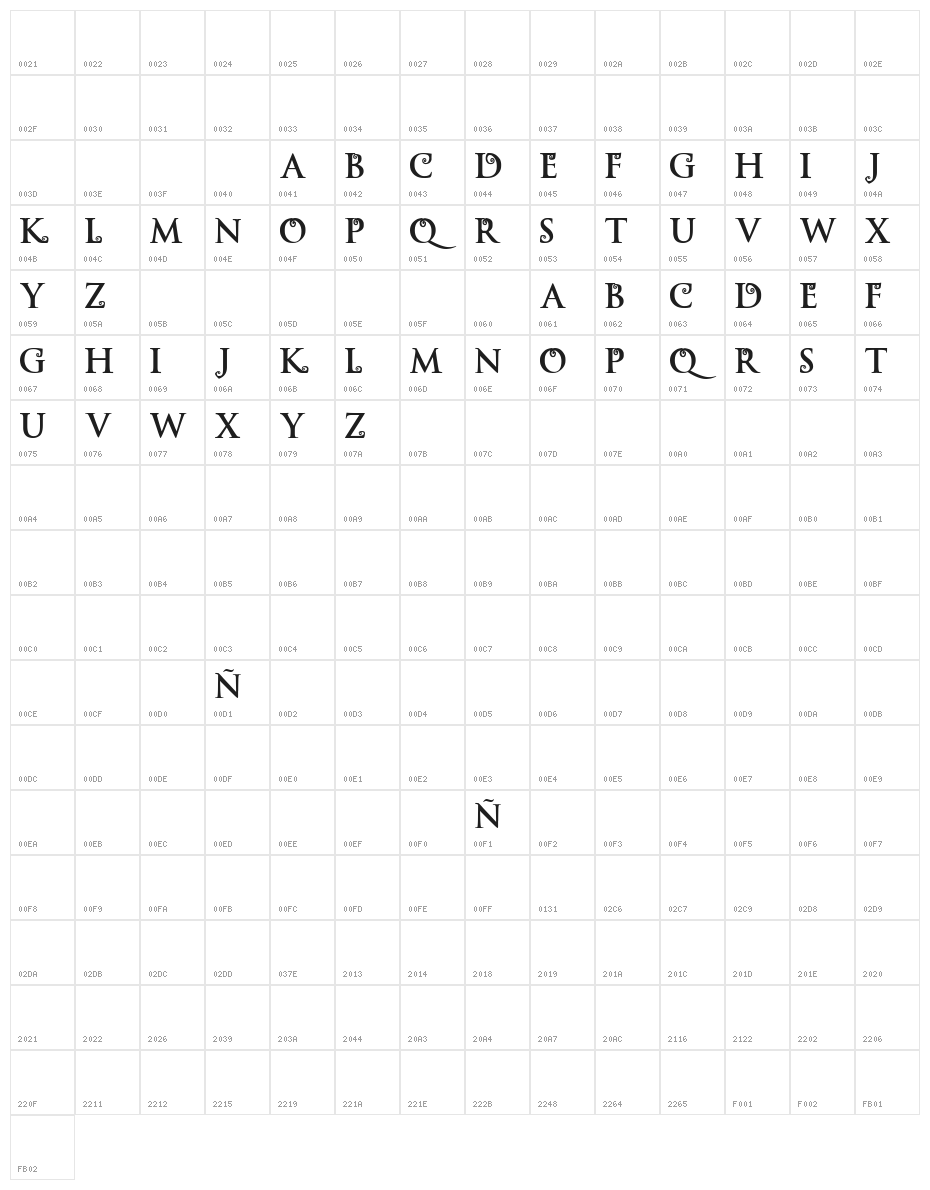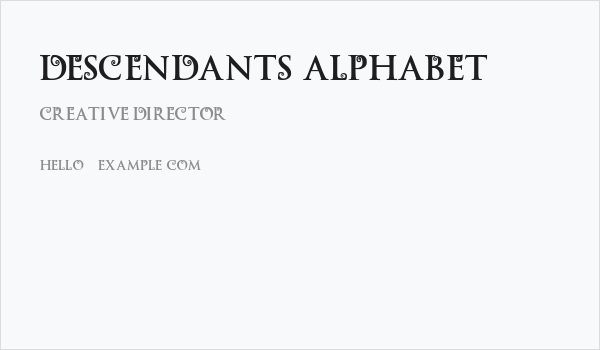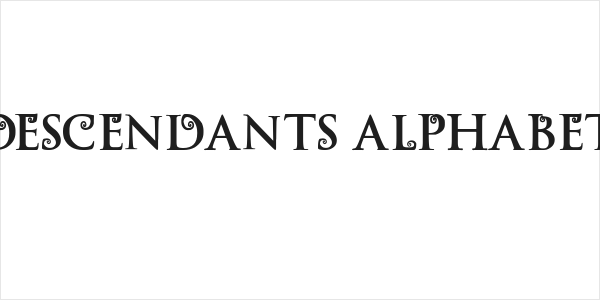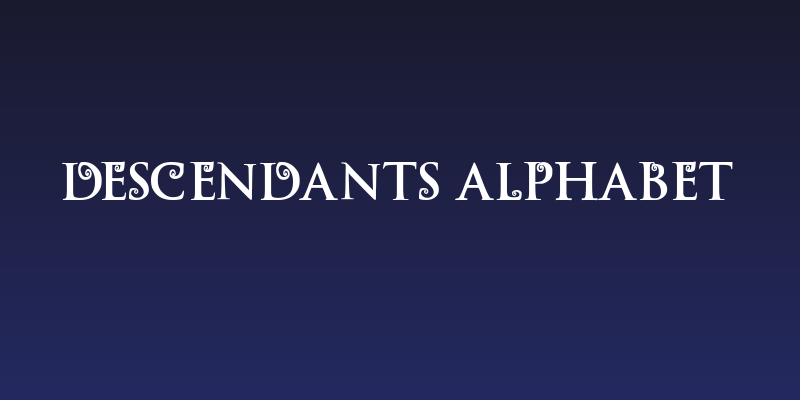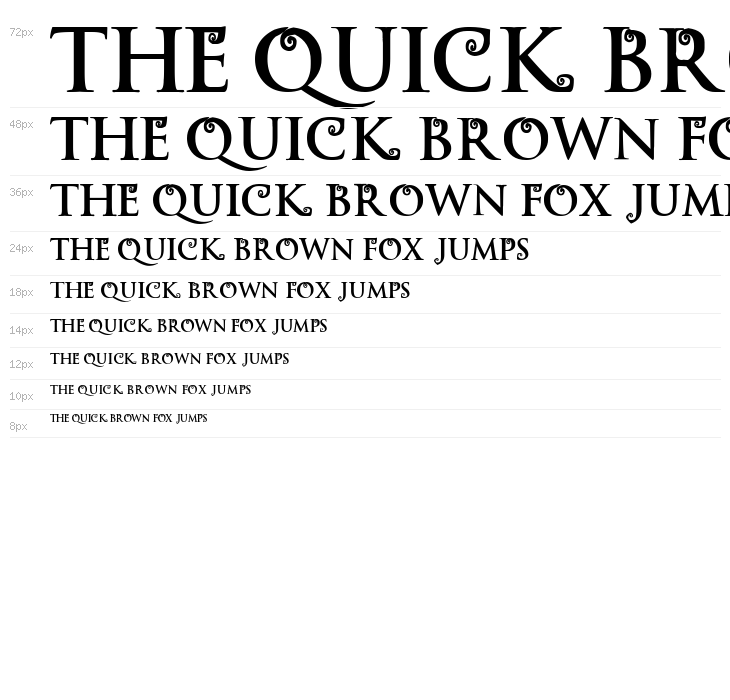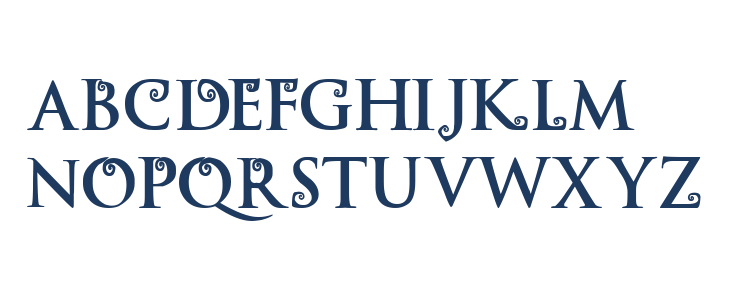
Descendants Alphabet Font
Descendants Alphabet Description
This font features an ornate and decorative style with elegant swirls and flourishes integrated into the letterforms. The uppercase letters are particularly embellished, with some characters like 'Q' and 'R' having extended tails that add a whimsical touch. The overall appearance is bold and eye-catching, making it suitable for designs that require a dramatic flair. The font maintains a consistent stroke width, giving it a balanced and cohesive look. The spacing between characters is normal, ensuring readability while still allowing the decorative elements to shine.
| Proposed Projects | Ideal for use in fantasy-themed projects, book covers, movie posters, invitations, and branding that requires a touch of elegance and drama. |